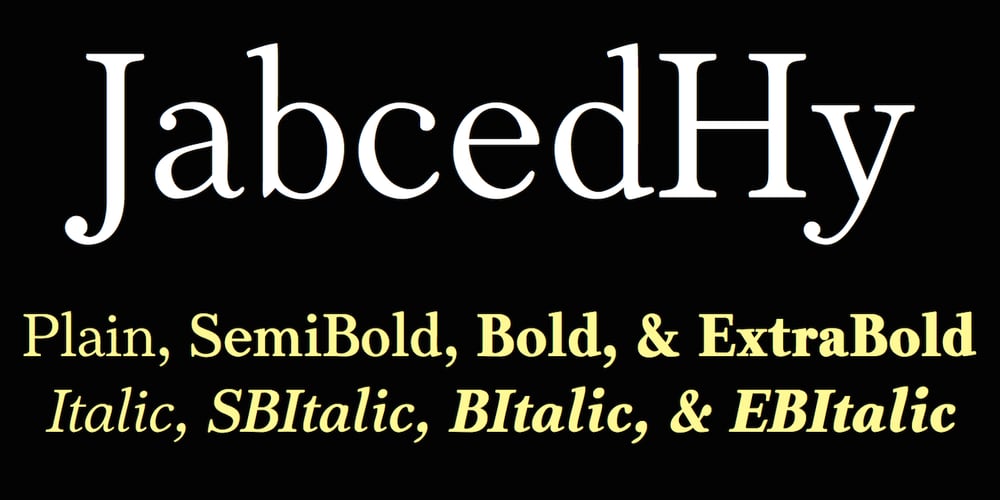
JabcedHy
JabcedHy font
JabcedHy Font Family was designed by Robert Schenk and published by Ingrimayne Type. JabcedHy contains 8 styles and family package options. JabcedHy is a serifed, legible typeface in four weights with each weight having both an upright and an italic style. The original four fonts (plain, italic, bold, and bolditalic) were constructed by blending two other typefaces, and because the result seemed better than either parent, the parents were retired. Semibold and extra bold weights were added in a 2019 revision.